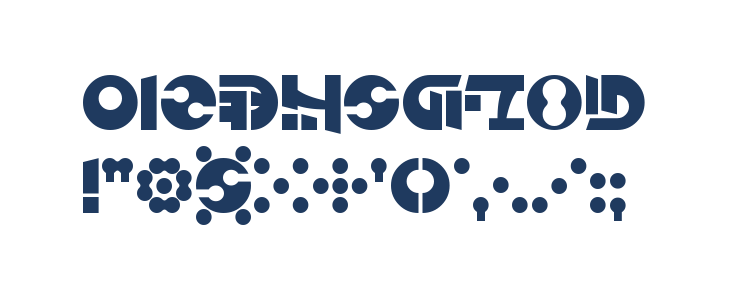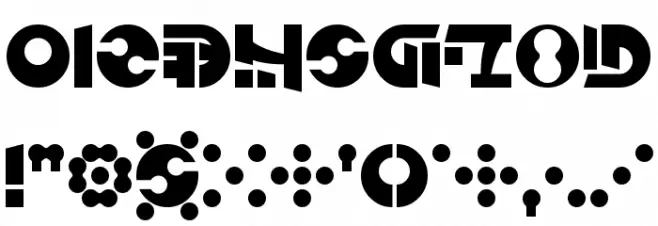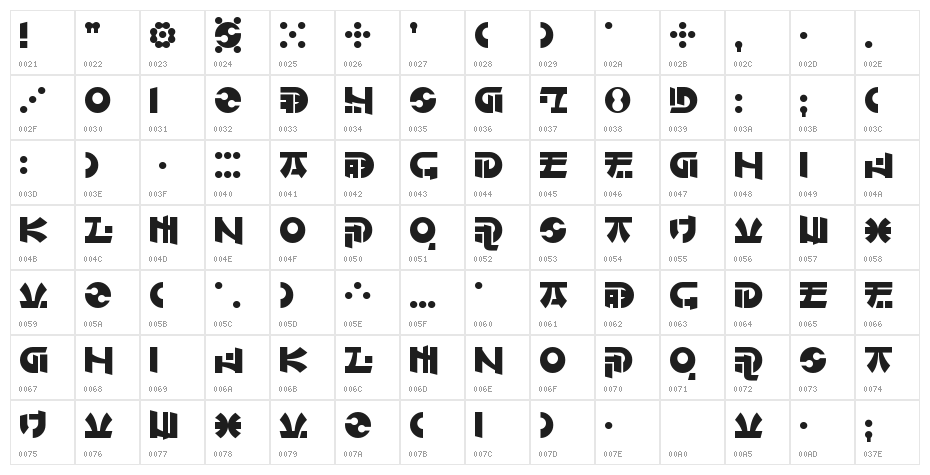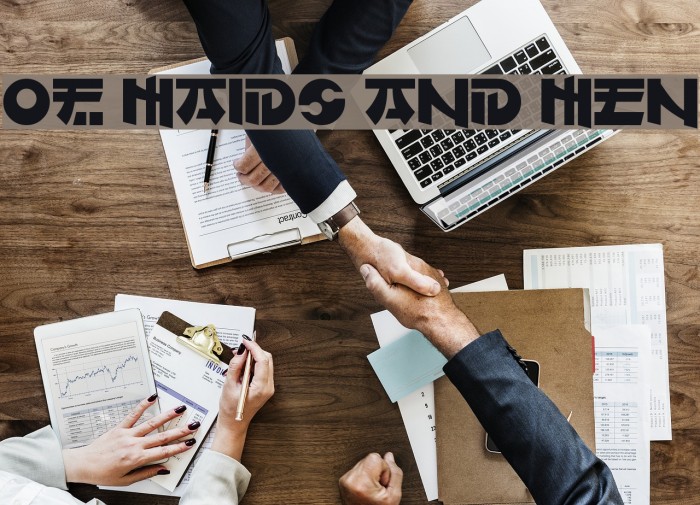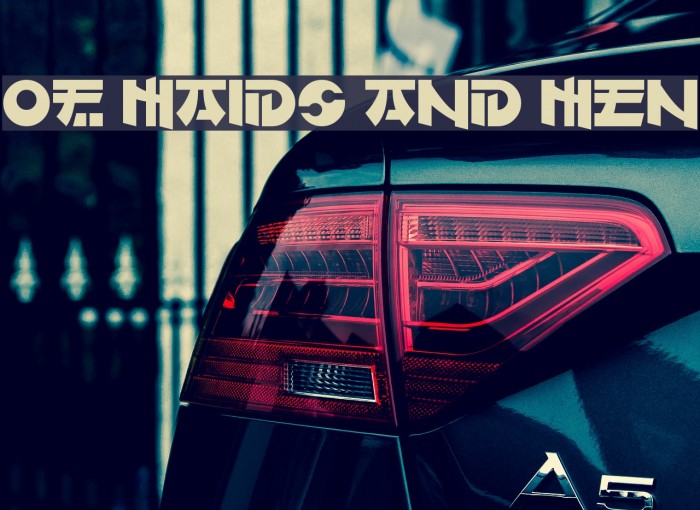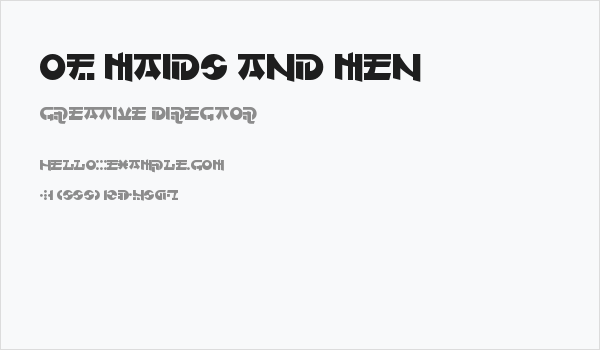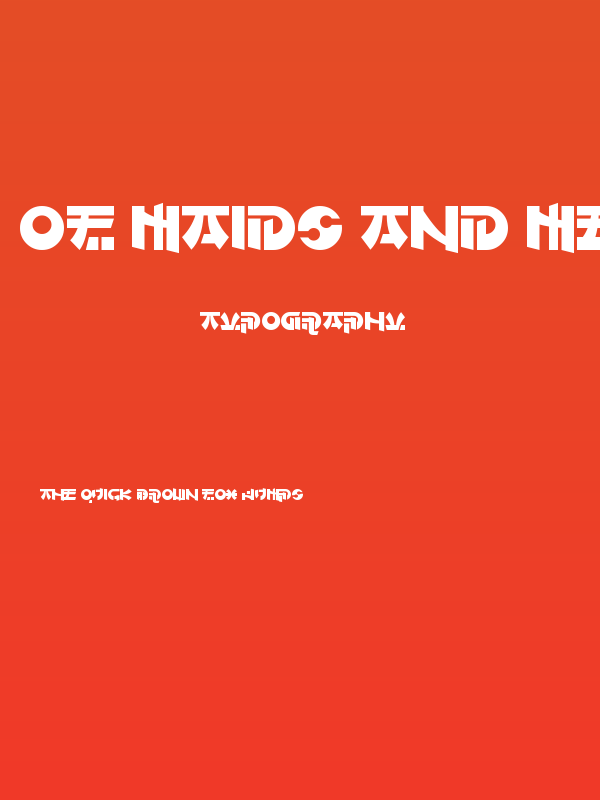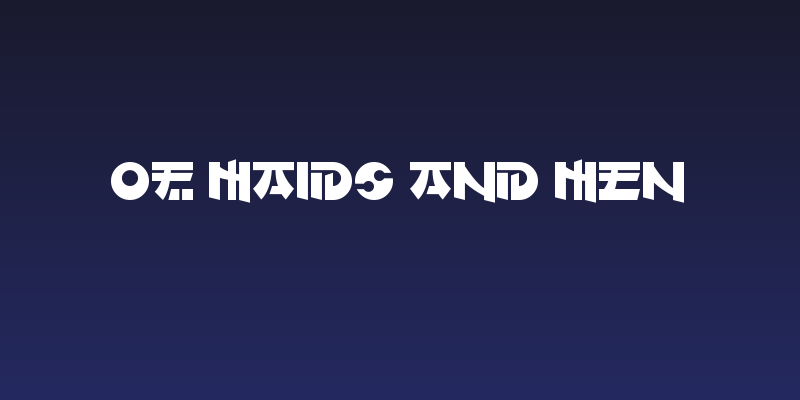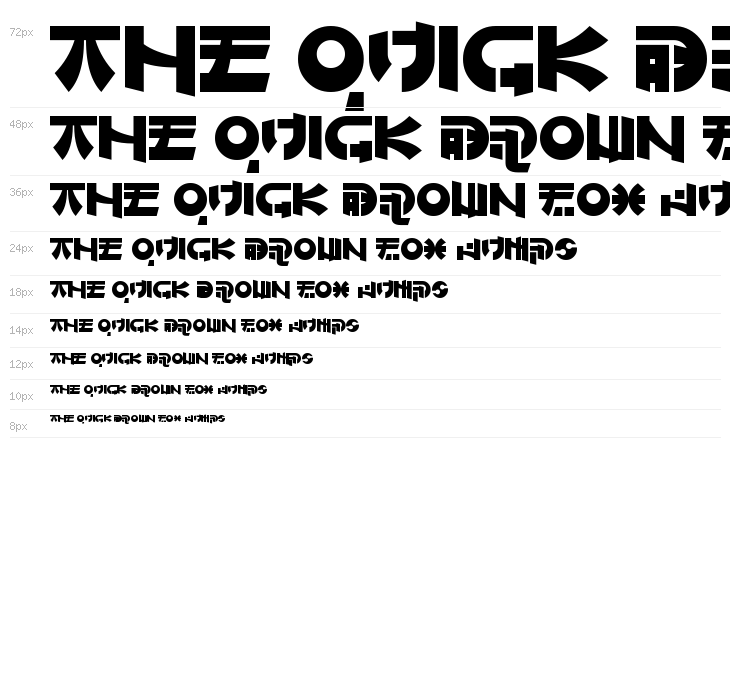
Of Maids and Men Font
Of Maids and Men Description
This font features a bold and geometric design, characterized by its thick, angular strokes and unique cut-out patterns within each character. The letters are highly stylized, with a futuristic and abstract appearance that makes them stand out. The uppercase and lowercase letters share a consistent style, emphasizing symmetry and balance. The numbers and special characters follow the same design principles, ensuring uniformity across the entire typeface. This font's distinctiveness lies in its ability to convey a sense of modernity and innovation, making it ideal for creative and avant-garde projects.
| Overall Style | Futuristic, Modern |
| Proposed Projects | Ideal for sci-fi themed designs, modern art posters, innovative branding, and digital media projects. |